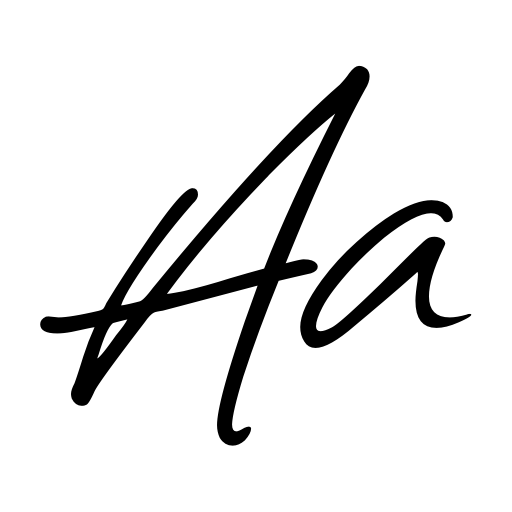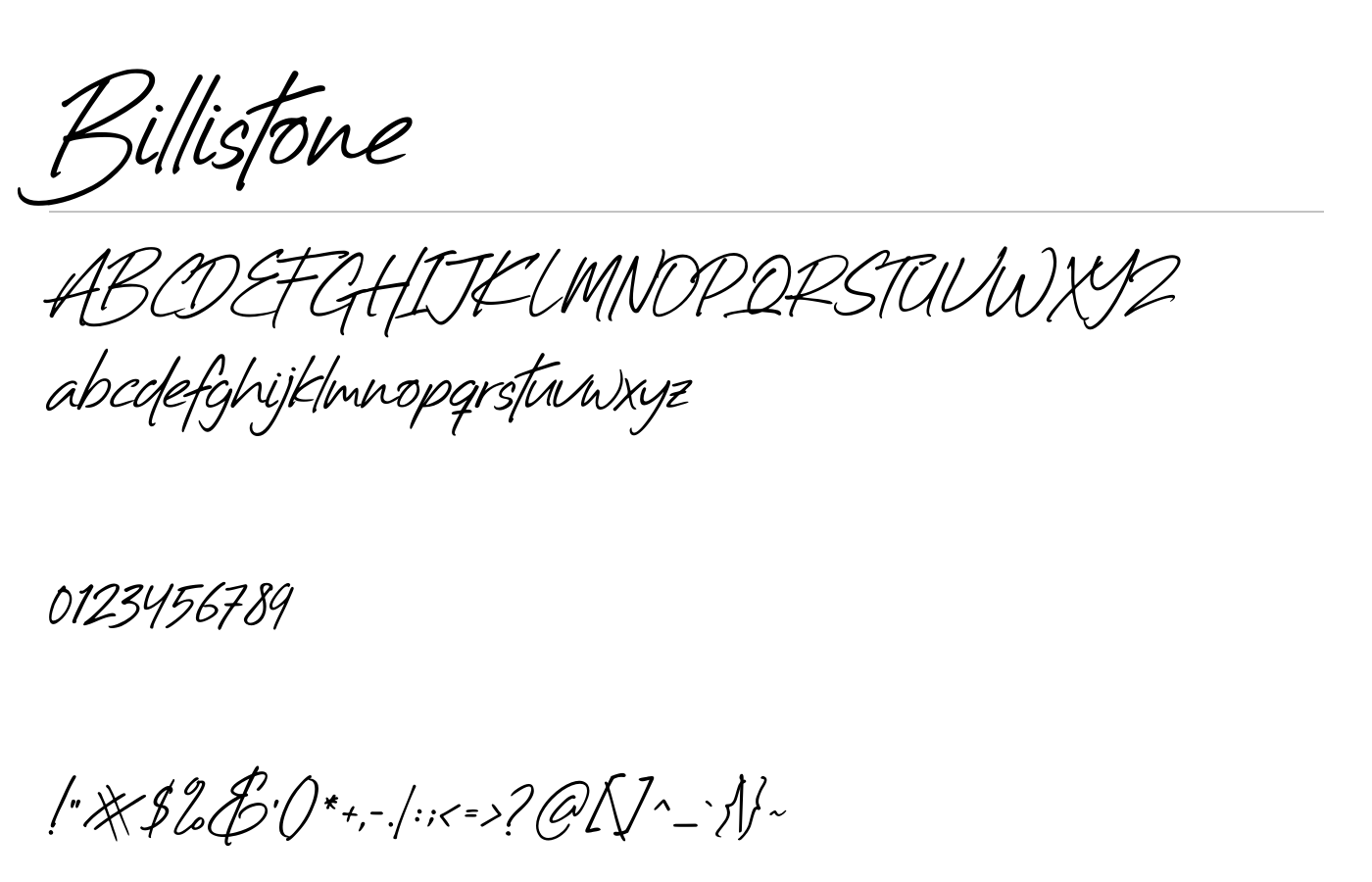
Billistone is a lively and elegant script font that mimics natural handwriting with smooth, flowing strokes and a graceful slant. Its light weight and airy spacing give it an open, friendly feeling, making it ideal for creative branding, invitations, and personal projects that want to convey a modern yet approachable style. This font works well in headlines and logos where a touch of casual sophistication is desired.
Billistone Font
About Billistone Font
| Font family | Billistone Font |
| Designer | Riyadh Rahman |